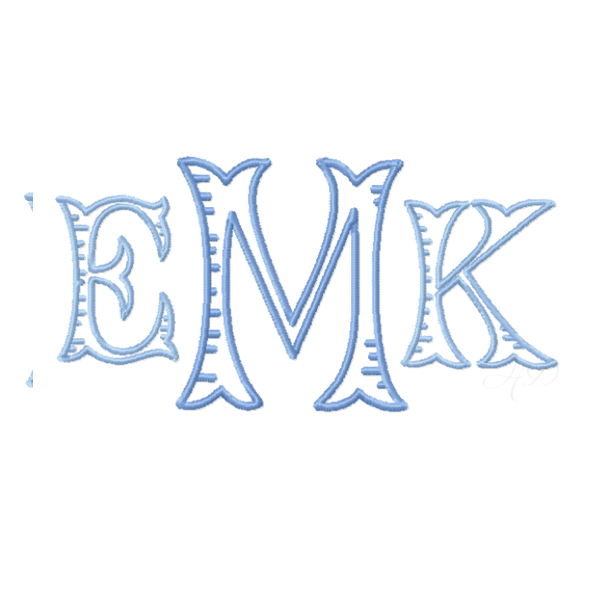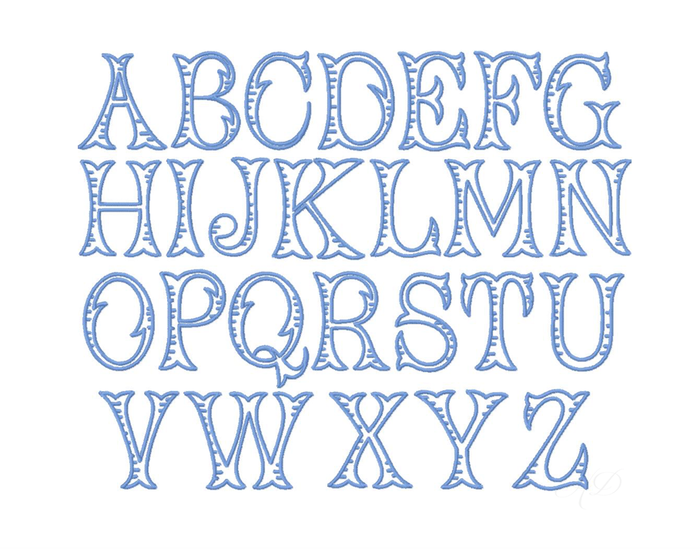
Fairfax Satin Ribbed Embroidery Font
Discover the versatility of the Fairfax Satin Ribbed Embroidery Font, designed to elevate your crafting projects with elegance. This unique satin stitch monogram features five different sizes: 1.5", 2", 2.5", 3", and 3.5". Perfect for personalizing gifts or enhancing your DIY creations, this font offers a high-quality finish without the complexity of an applique.